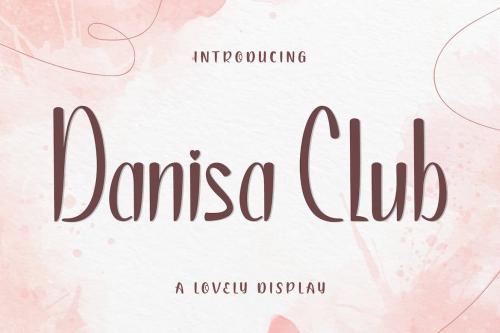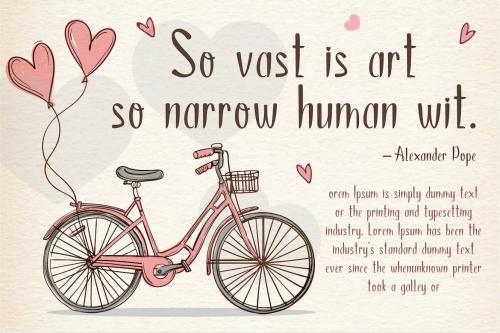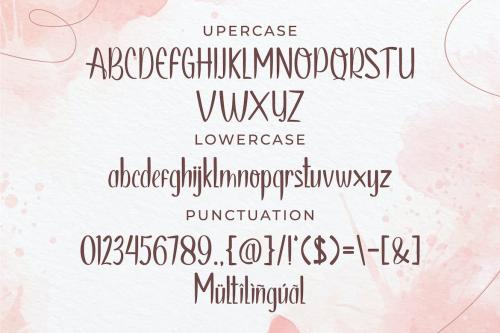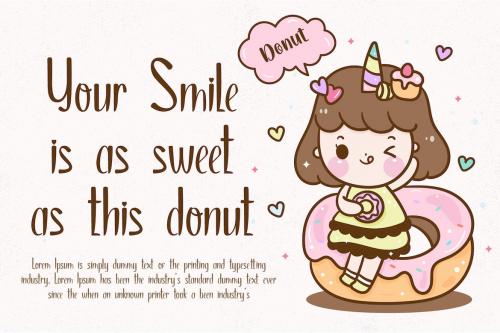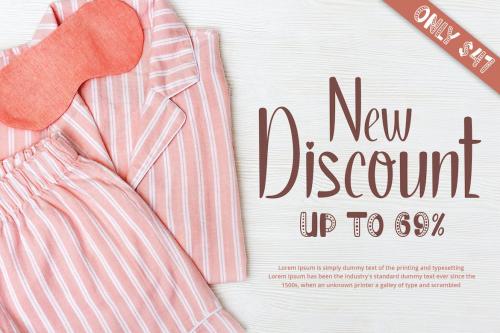
丹尼斯亚俱乐部 - 手工艺 display字体
Danisa Club Font
Danisa Club is a display font. This font can be used for products such as baby necessities, crafts, product packaging, quotes, product designs, craftsmen, labels, photography, watermarks, logos & branding. Everything can be accessed using software that supports Opentype, such as Adobe Indesign, Adobe CS Illustrator, Adobe Photoshop CC, and Corel Draw.